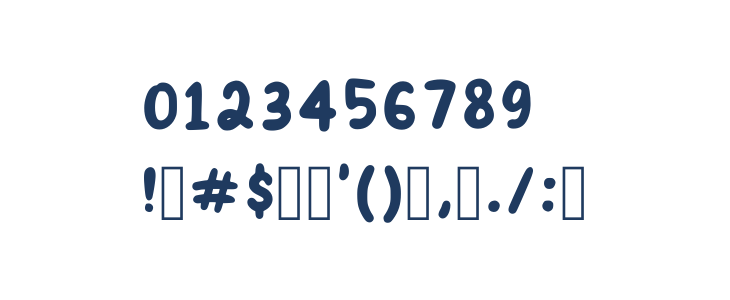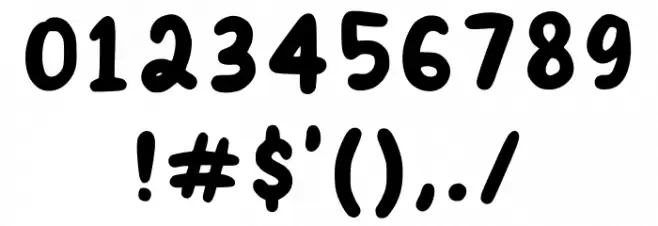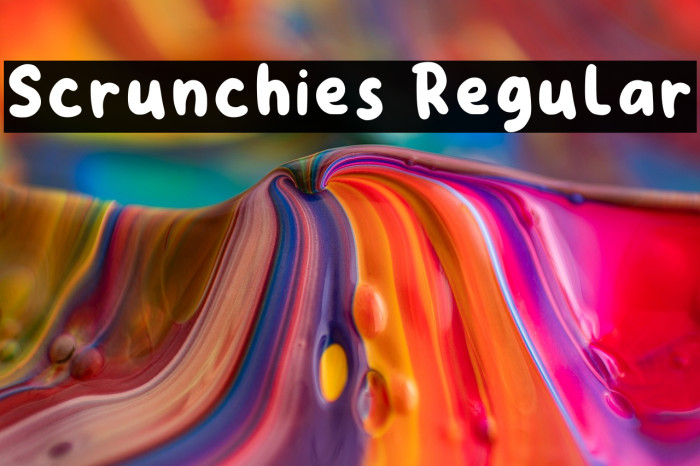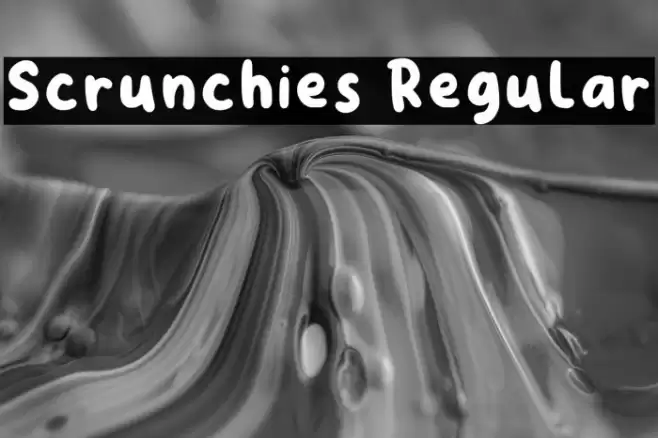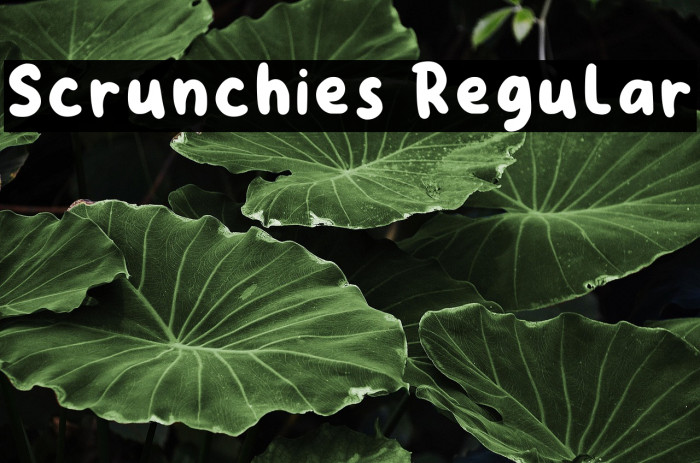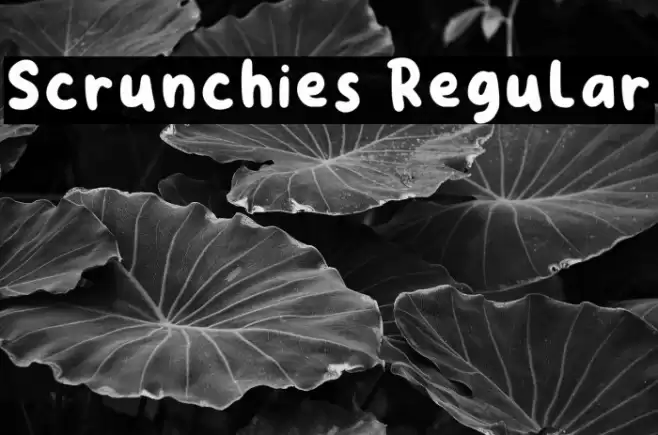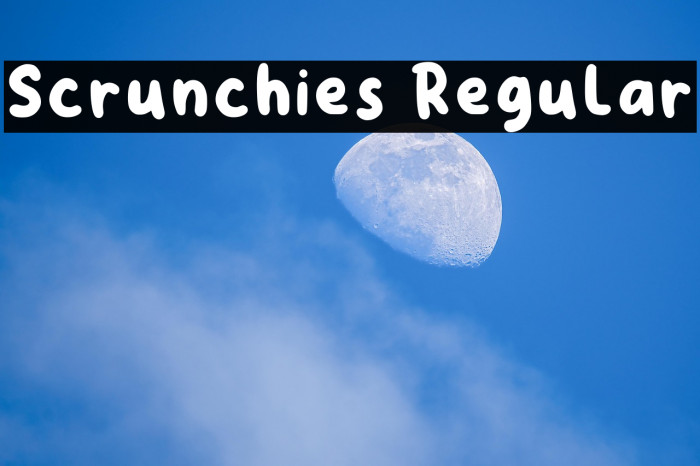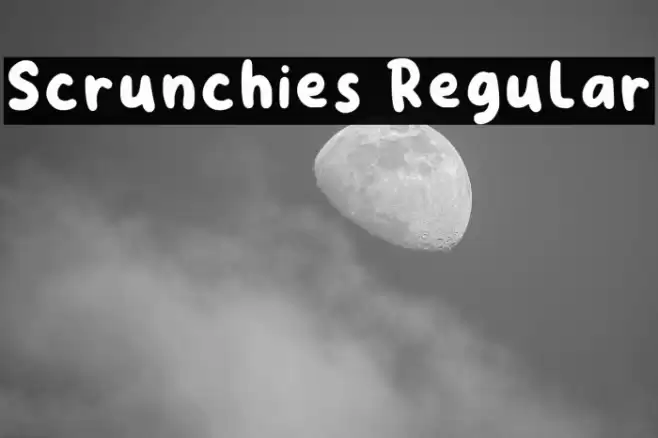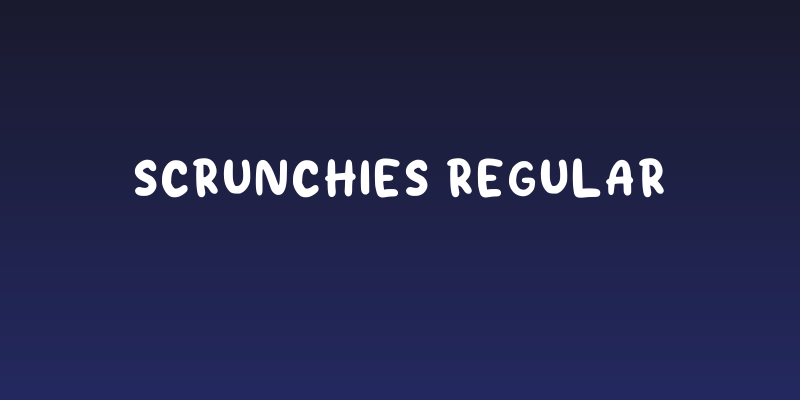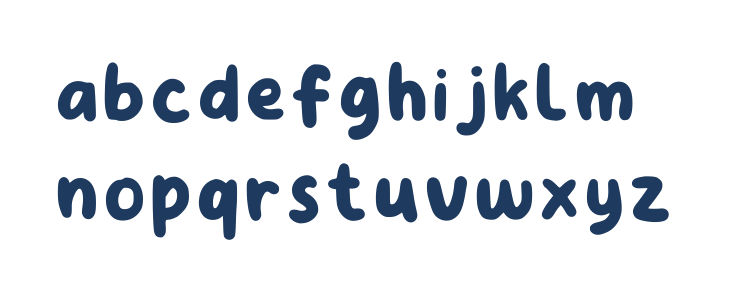
Scrunchies Regular Font
Scrunchies Regular Description
This playful and rounded font features a whimsical style with bold, smooth curves and a friendly appearance. Each character is crafted with a consistent stroke width, giving it a cohesive and approachable look. The letters are slightly condensed, enhancing readability while maintaining a fun and informal vibe. The font's design is reminiscent of hand-drawn lettering, making it ideal for projects that require a personal touch. Its unique character shapes and soft edges make it stand out, providing a sense of warmth and creativity.
| Proposed Projects | Ideal for children's books, playful branding, greeting cards, and casual invitations. |